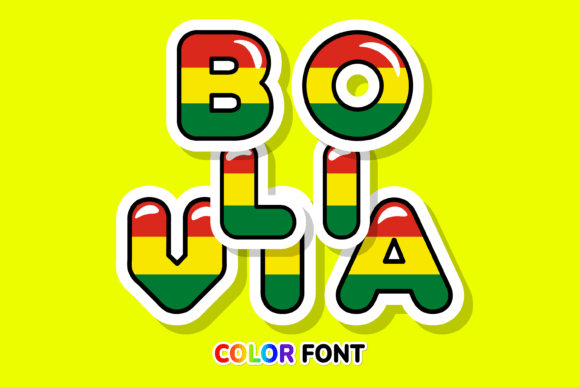
The Bolivia Font: A Vibrant Color Font for Creative Projects
Have you ever been in the middle of a design project, and suddenly, you just can’t seem to find the right font? I recall a particularly frustrating moment when I was working on a custom craft project for a client who requested a design that incorporated the colors of the Bolivian flag. After hours of searching, I stumbled upon the Bolivia Color font, and it was love at first sight! 💕
Designed in the style of the Bolivian Flag, this color font (Opentype-SVG) has been a game-changer for my creative projects. In this article, I’ll share my honest review of the Bolivia Font, provide a practical guide on how to use it, and explore similar fonts that you might enjoy.
Honest Review: What I Love and Some Quirks 🤔
- ✨ Vibrant Colors: The Bolivia Font is an incredibly cool color font that brings a lovely touch to any design project.
Some Quirks:
- 🤔 Steep Learning Curve for Advanced Features: While the font is easy to use, mastering its advanced features, such as OpenType and glyphs, may take some time.
The Story Behind the Bolivia Font
The Bolivia Font was created by a talented designer who wanted to capture the vibrant spirit of the Bolivian flag. Inspired by the country’s rich culture and stunning landscapes, the designer crafted a font that’s both beautiful and functional. While the designer’s story is shrouded in mystery, their passion for creating unique and creative fonts is evident in every detail of the Bolivia Font.
| What type of font is the Bolivia Font? | The Bolivia Font is a color font (Opentype-SVG) designed in the style of the Bolivian Flag. |